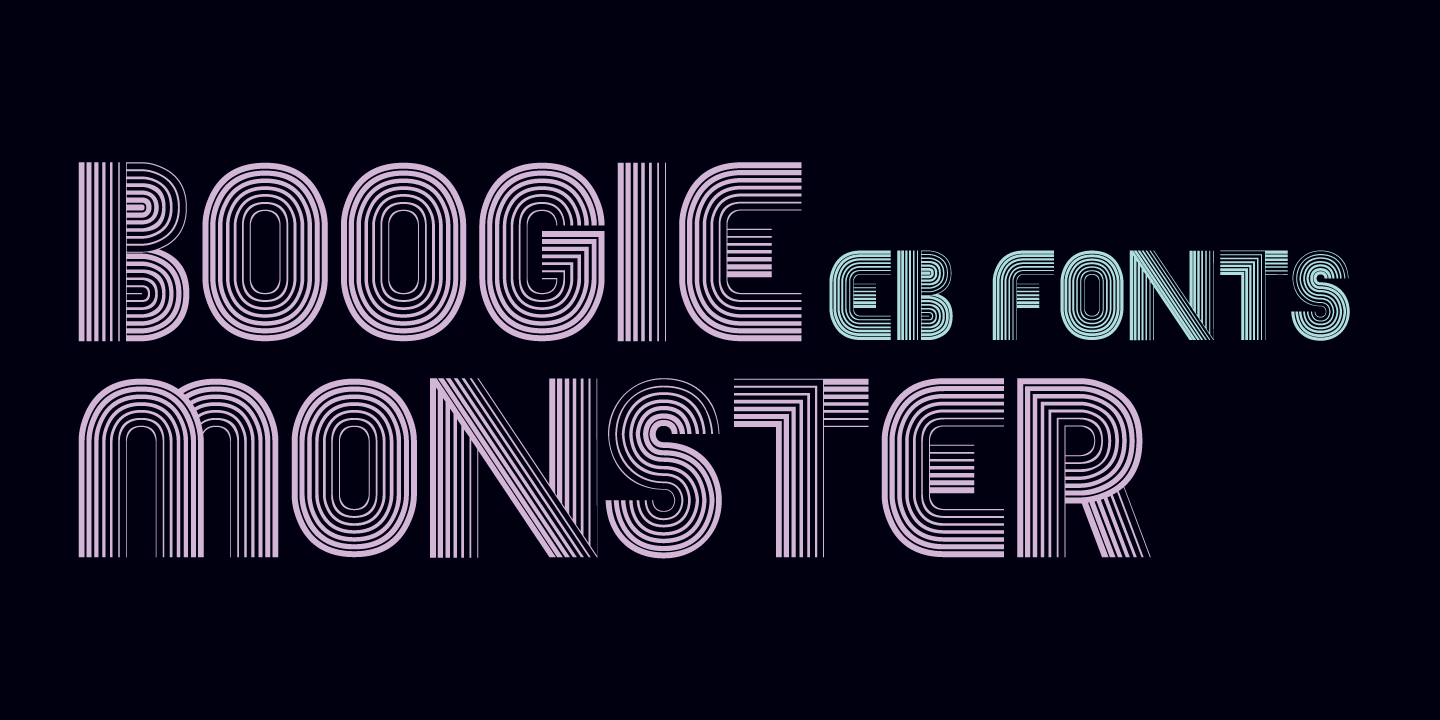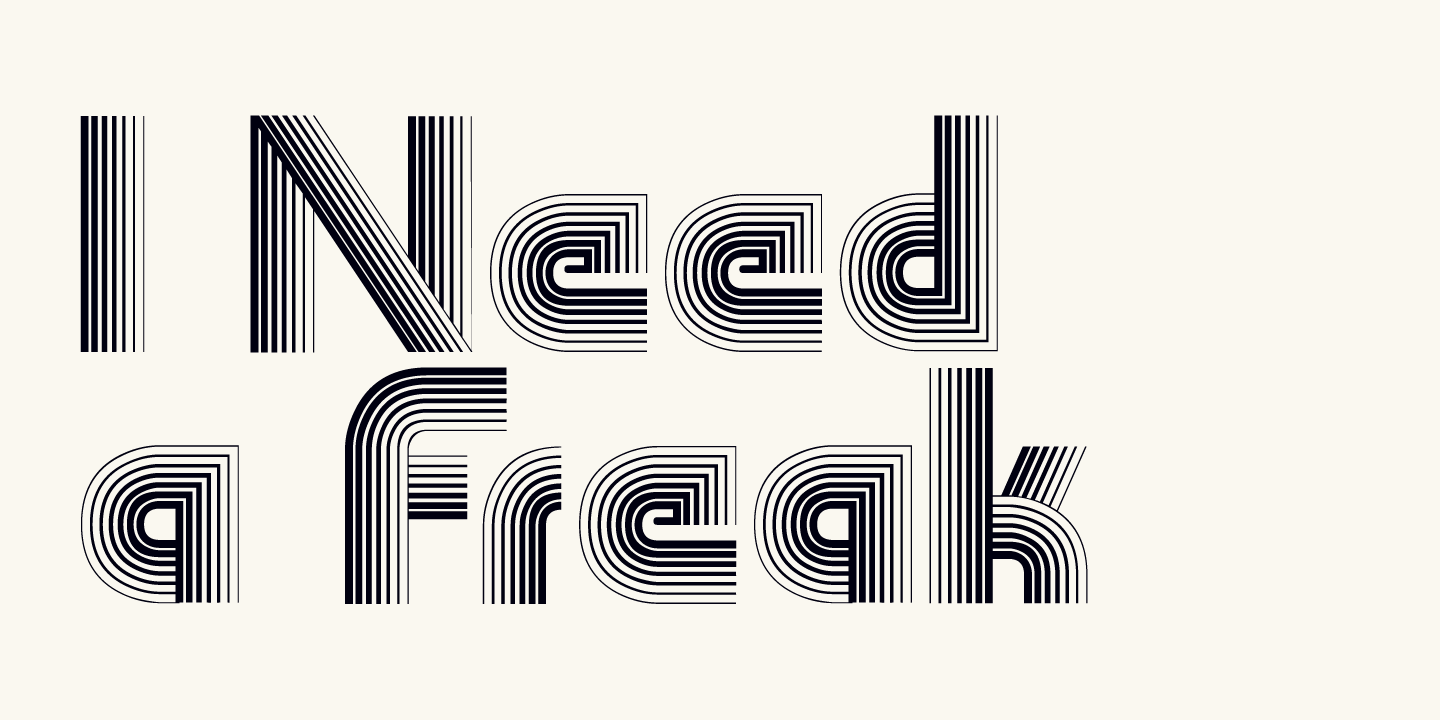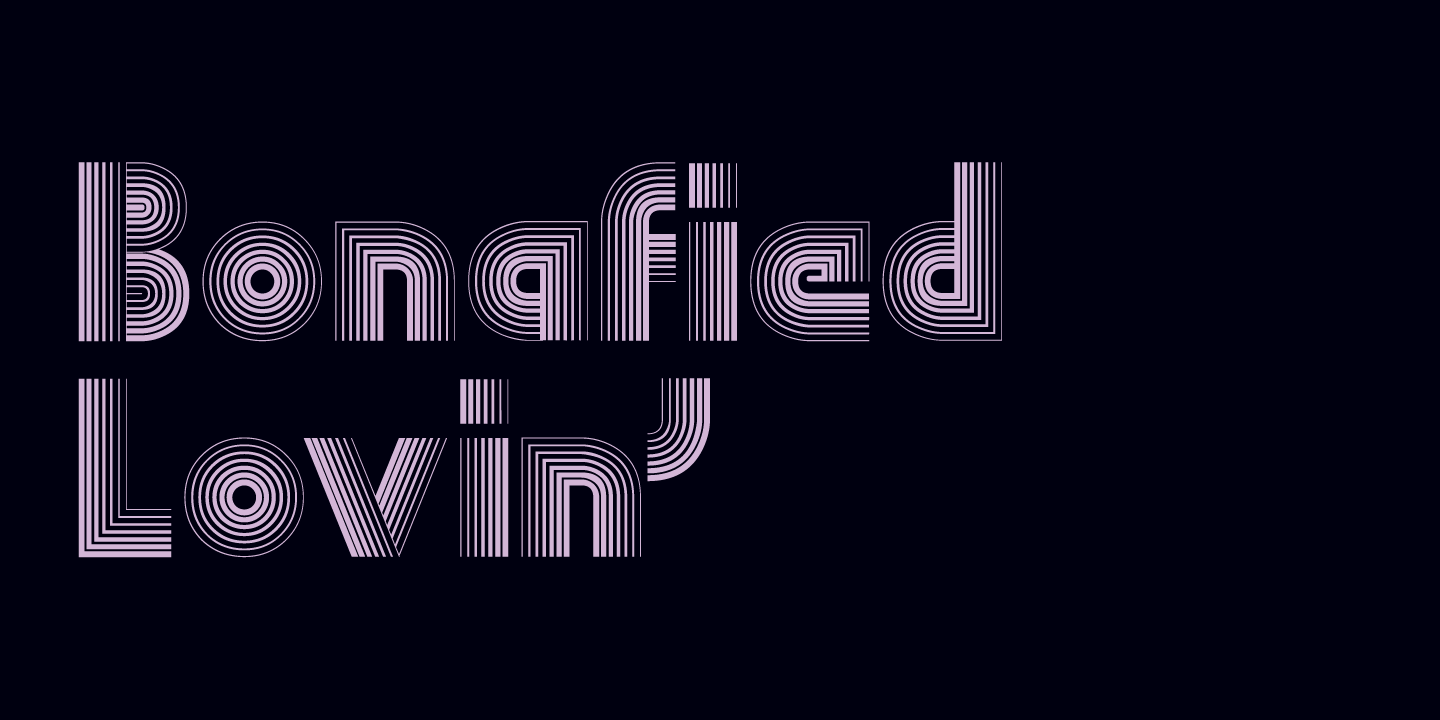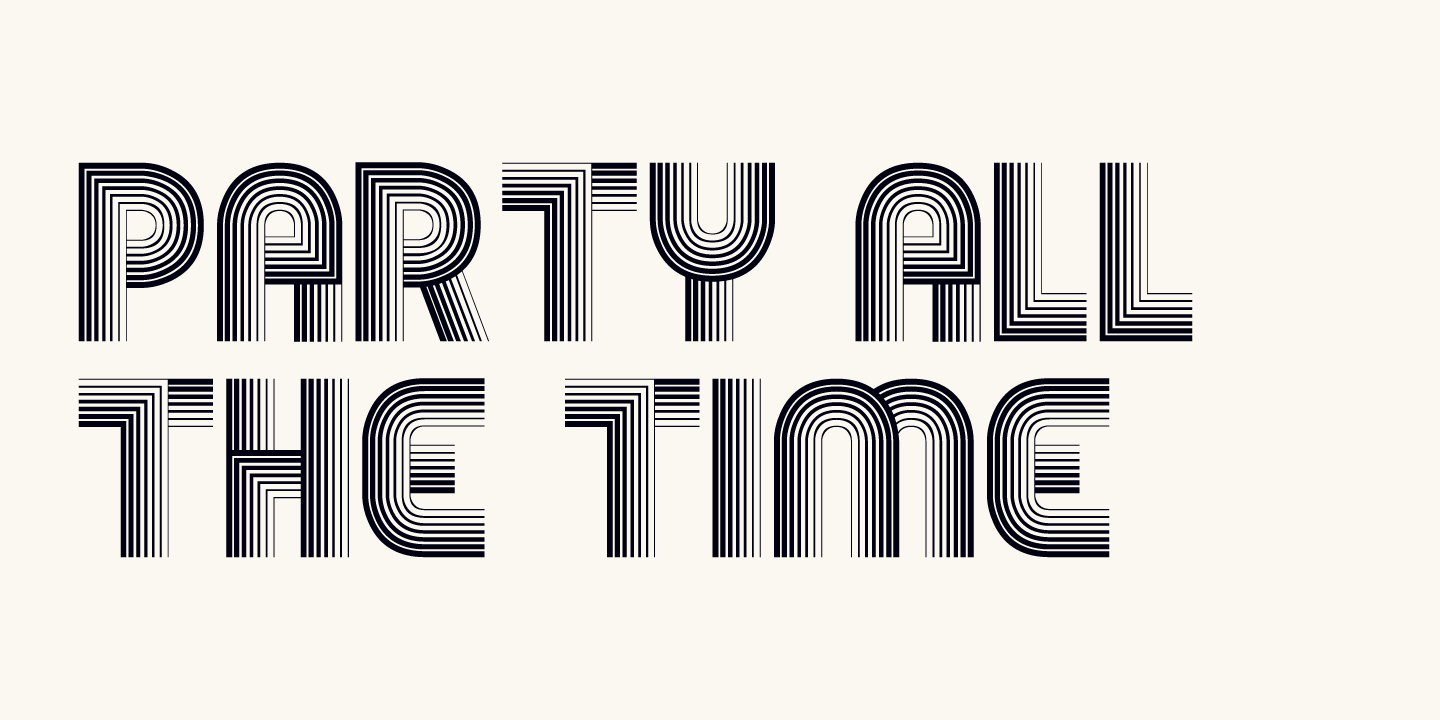
EB Boogie Monster
Font Family by Fenotype
EB Boogie Monster is a single-style display font with a playful, retro spirit and a boldly groovy attitude. Its look leans into late-1960s and 1970s visual culture, giving type a wavy, party-ready personality that feels instantly expressive and full of movement.
Designed by Fenotype, this special effect style is a natural fit for posters, album-inspired graphics, party pieces, themed branding, and other decorative display work that calls for a fun, nostalgic tone. If you want lettering that feels funky, spirited, and a little bit wild, this one brings that boogie energy right to the page.